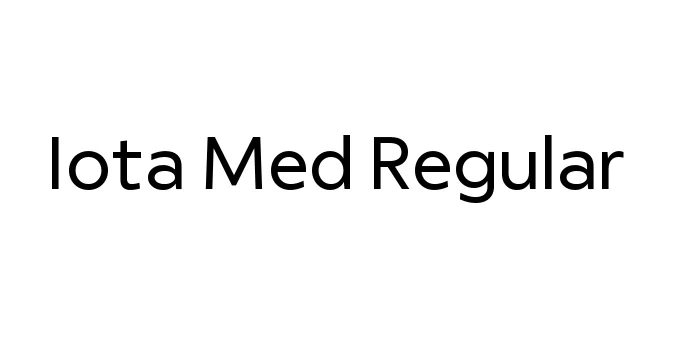
Iota Med Regular
Designed by Jean François Porchez
Iota Med Regular is a sophisticated sans-serif typeface originally developed by the esteemed French typographer Jean François Porchez. Commissioned in the late 1990s for the French Ministry of Equipment, Transport, and Housing, the typeface was engineered to solve complex legibility challenges in public infrastructure. Its design is rooted in the necessity for clear communication, ensuring that information remains accessible even in demanding environments such as highway signage and transit maps.
Structurally, Iota Med Regular represents a harmonious blend of geometric structure and humanist sensitivity. It features a generous x-height and open apertures that prevent character blurring at small sizes or from great distances. This balance makes it a versatile tool for designers who require a font that is both technically proficient and aesthetically pleasing, serving as a cornerstone for institutional and corporate visual identities across Europe.
Iota Med Regular Best Uses
Optimized for high visibility and clear direction in public spaces.
Provides a clean, modern, and authoritative voice for professional identities.
Ensures clarity in manuals and reports where readability is essential.
Clean lines and open counters make it effective for screen-based interfaces.